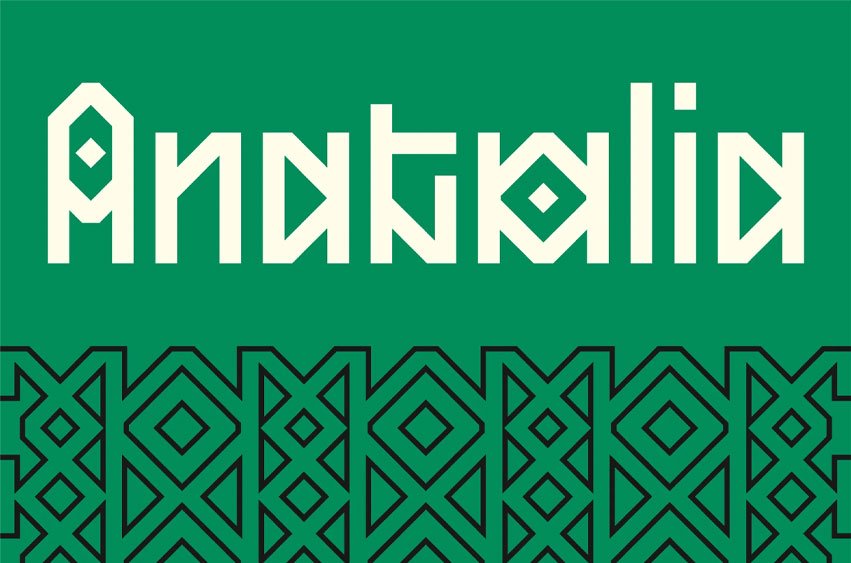
SK Anatolia Font is a mono decorative font designed inspired by the cultural structure of Anatolia. It was designed by Salih Kızılkaya in 2021.
It offers full support for the Latin alphabet and meets all the typographic elements you will need. It contains 12 individual fonts and 4236 glyphs in total.